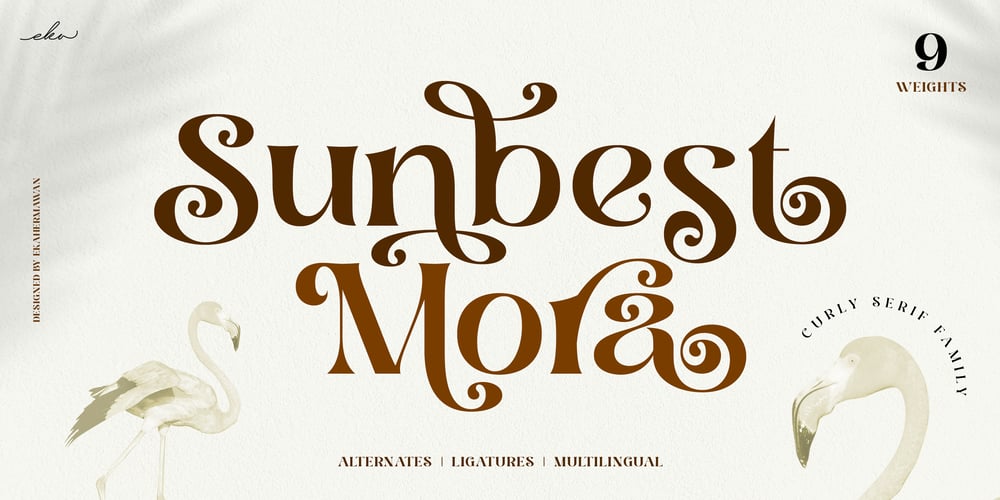
Sunbest Mora
Sunbest Mora font
Sunbest Mora Font Family was designed by Putu Eka Hermawan and published by Ekahermawan. Sunbest Mora contains 9 styles and family package options. Sunbest Mora is a curly designed serif family font that consists of 9 weights from Thin to Black. Sunbest Mora also includes a bunch of alternate characters (PUA Encoded) and ligatures characters to give you a wide range for creating attractive typographic design results for many different projects such as logo, branding, poster, magazines, labels, merchandise, invitation, presentation, advertising, quotes and so much more!FEATURES: OpenType support Playful to use (with ligatures and alternates options) Multilingual support PUA Encoded If you need support or more information about this item, please kindly contact me: ekahermawanputu@gmail.comThank you so much…I really hope you enjoy when using it!